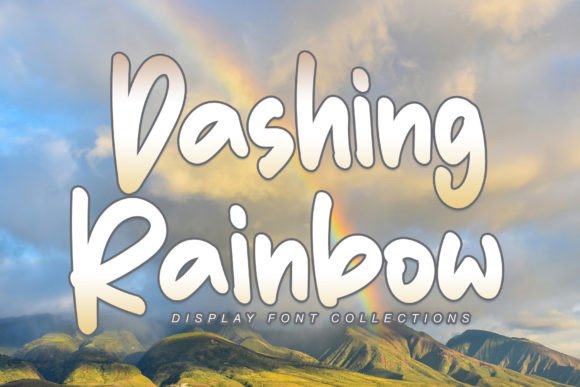
Dashing Rainbow Font: Elevate Your Design with a Touch of Elegance
In the world of typography, a well-crafted font can make all the difference in elevating your design to new heights. Introducing Dashing Rainbow, a stylish handwritten font that embodies the essence of contemporary elegance. Inspired by timeless classic calligraphy, this font is poised to add a touch of sophistication to your projects.
The Birth of Dashing Rainbow
Dashing Rainbow was born out of a passion to create a font that seamlessly blends traditional calligraphy with modern flair. The result is a beautifully balanced and varied font that exudes an air of refinement. Each letter has been meticulously crafted to ensure that the font flows effortlessly, making it perfect for a wide range of applications.
Key Features of Dashing Rainbow
- Contemporary Atmosphere: Dashing Rainbow boasts a fresh and modern aesthetic that will instantly elevate your designs.
- Impeccable Form: The font’s precise and elegant letterforms ensure that your text is always legible and visually appealing.
- Balanced and Varied: The font’s carefully crafted characters offer a delightful variation in stroke width and style, adding depth and interest to your text.
- Handwritten with Flair: Dashing Rainbow’s handwritten style injects a touch of personality into your designs, making them stand out from the crowd.
What Makes Dashing Rainbow Special?
So, what sets Dashing Rainbow apart from other fonts? For starters, its unique blend of classic calligraphy and modern sensibilities makes it an incredibly versatile font. Whether you’re working on a branding project, a website, or a marketing campaign, Dashing Rainbow is the perfect choice. Additionally, the font’s exceptional legibility ensures that your message is always communicated clearly, making it ideal for body text and headings.
Perfect for a Variety of Projects
Dashing Rainbow’s adaptability makes it suitable for a wide range of projects, including:
- Branding: Create a lasting impression with a custom logo or signage that showcases your brand’s personality.
- Web Design: Elevate your website’s typography and create a cohesive visual identity.
- Marketing Materials: Add a touch of elegance to your brochures, flyers, and business cards.
- Packaging: Make your product stand out on store shelves with eye-catching labels and packaging.
Tips for Using Dashing Rainbow Effectively
To get the most out of Dashing Rainbow, here are a few tips to keep in mind:
- Pair with Neutrals: Combine Dashing Rainbow with neutral fonts to create visual contrast and add depth to your design.
- Experiment with Colors: Take advantage of Dashing Rainbow’s versatility by experimenting with different color schemes and gradients.
- Pay Attention to Spacing: Ensure that your text is easy to read by paying attention to spacing and kerning.
In conclusion, Dashing Rainbow is a stylish and elegant font that is sure to elevate your designs to new heights. With its impeccable form, balanced and varied characters, and contemporary atmosphere, this font is the perfect choice for designers looking to add a touch of sophistication to their projects. Whether you’re working on a branding campaign, website, or marketing materials, Dashing Rainbow is the perfect tool to help you communicate your message with style and elegance.